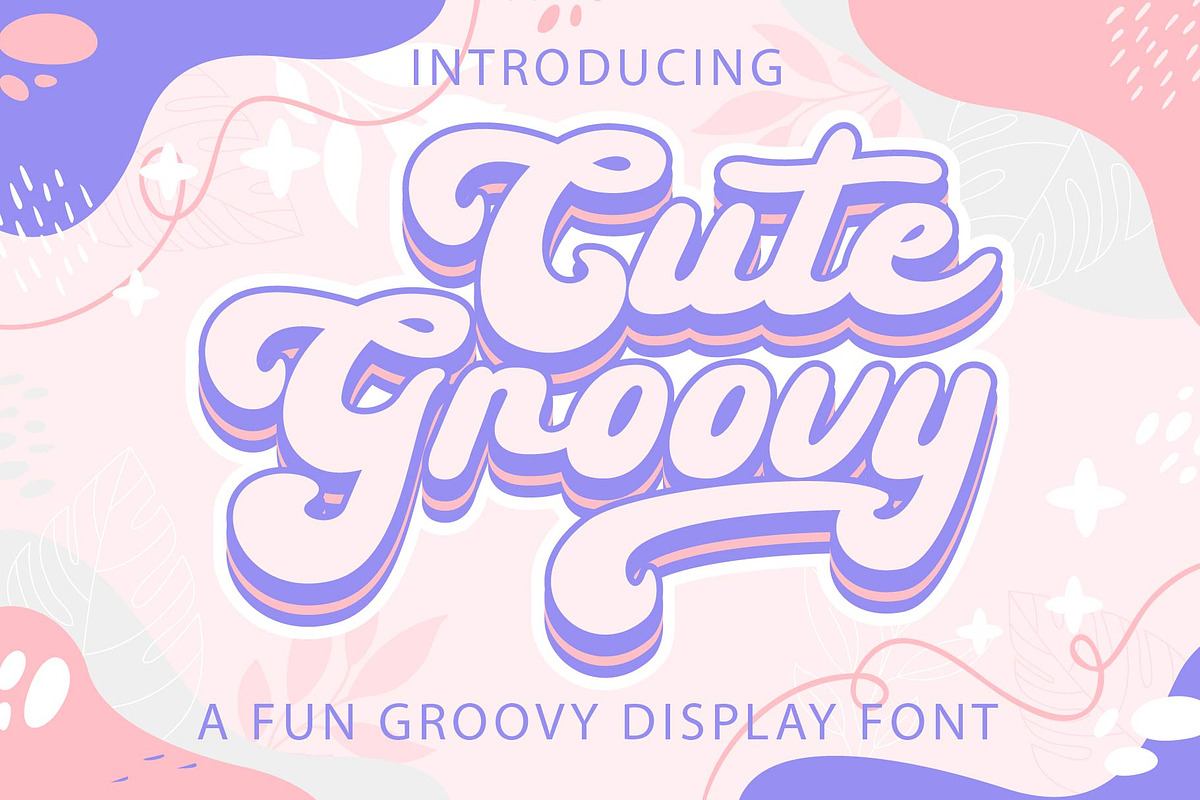
Cute Groovy - Retro Script Font Free Download
Introducing Cute Groovy - Retro Script Font Free Download, a playful and nostalgic typeface that captures the essence of the 1960s and 70s design aesthetics. With its bold curves and whimsical flair, this font is perfect for projects seeking a vintage yet fresh look, such as posters, branding, social media graphics, and more. Its unique style adds a touch of fun and personality to any design. Download Cute Groovy - Retro Script Font Free Download to experiment with its features in personal projects. For commercial use, please ensure you purchase the appropriate license. Elevate your designs with the vibrant and charming Cute Groovy - Retro Script Font Free Download